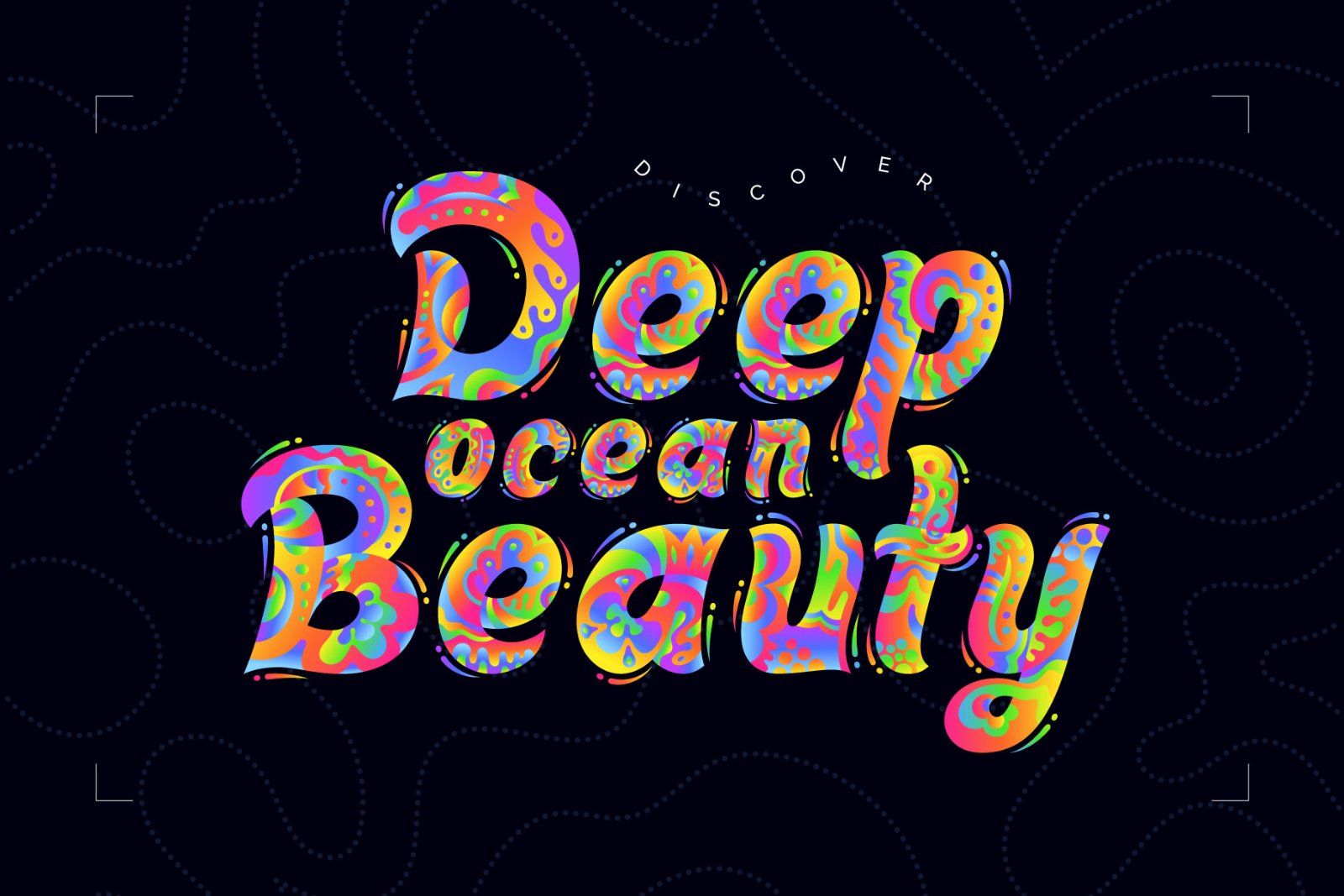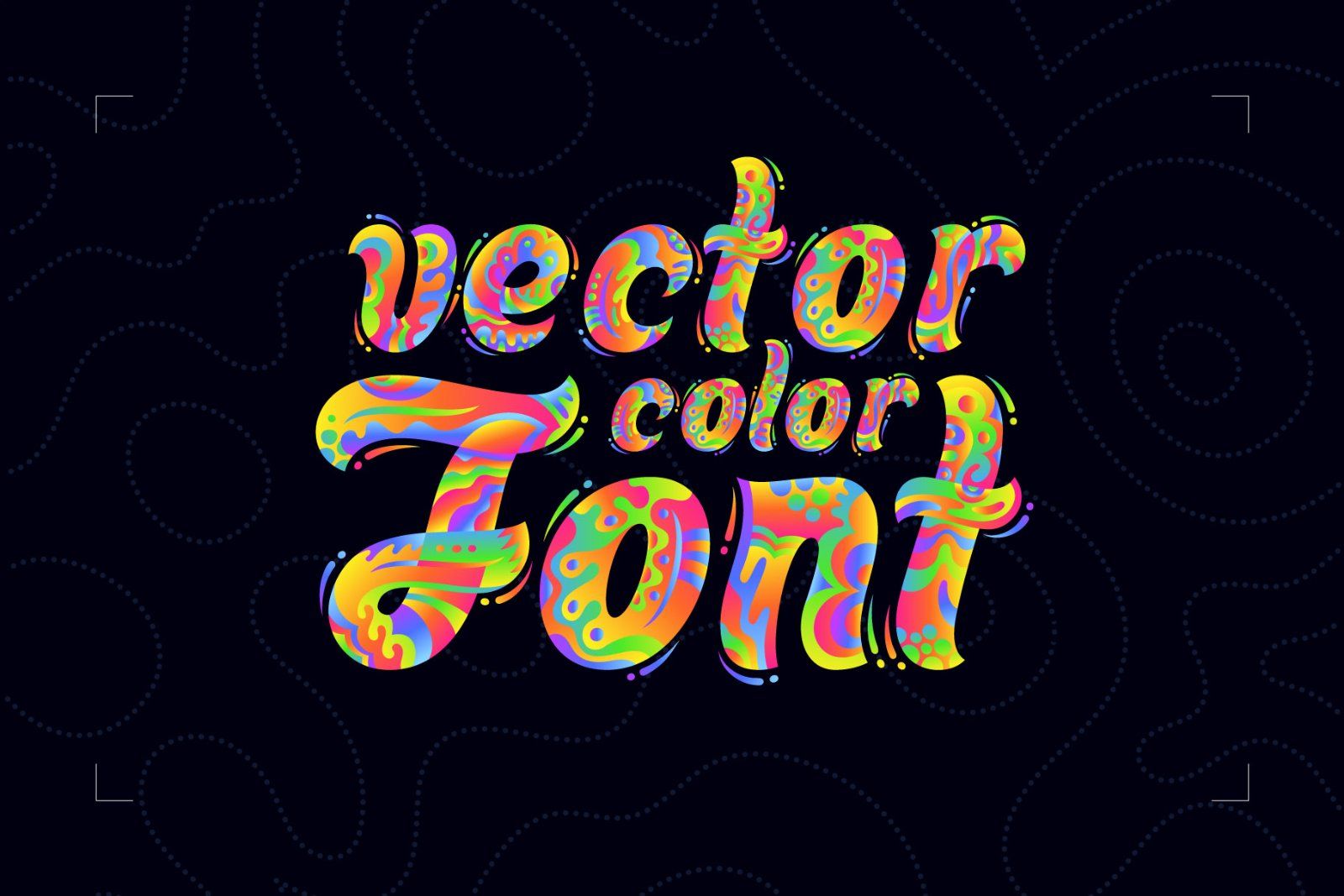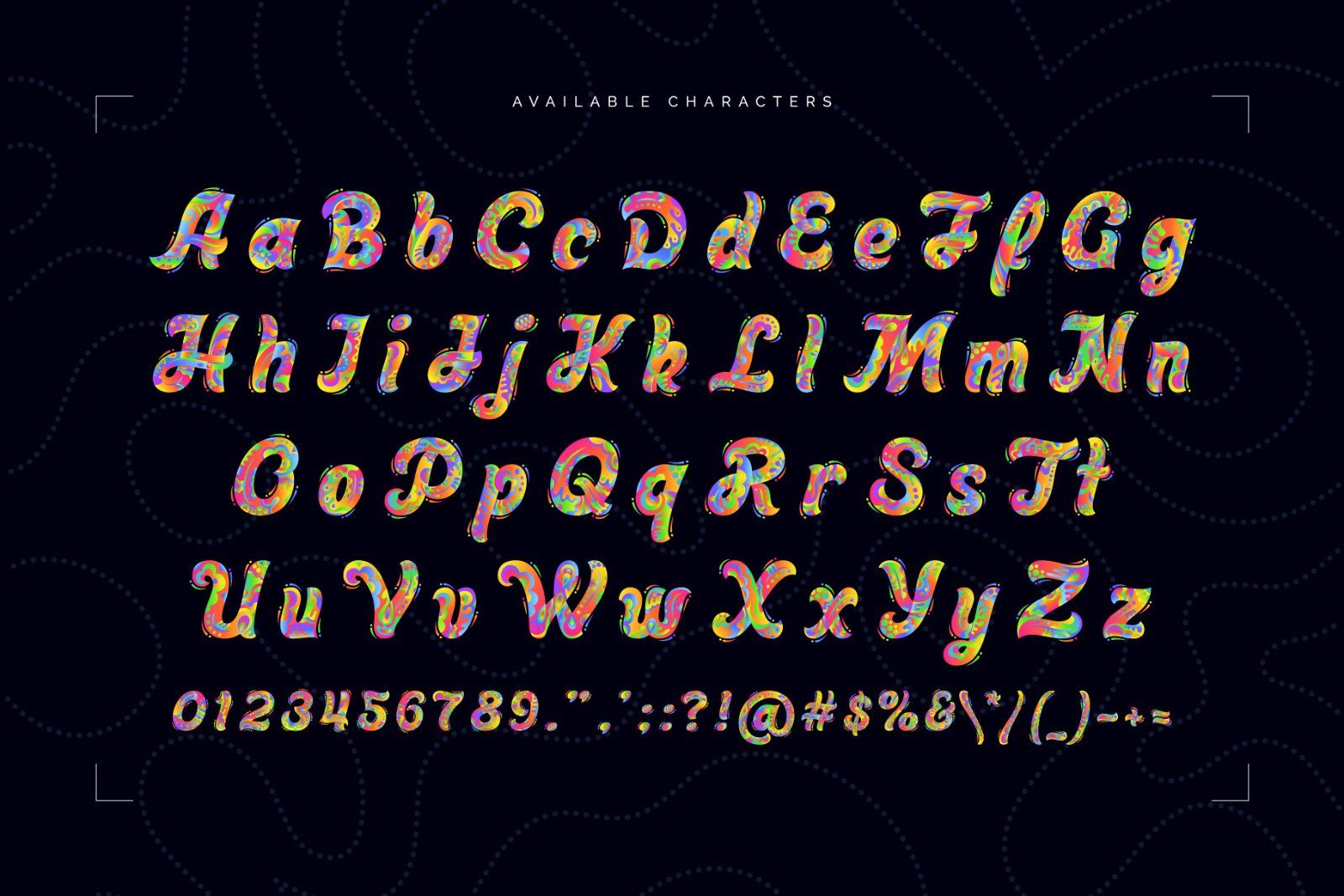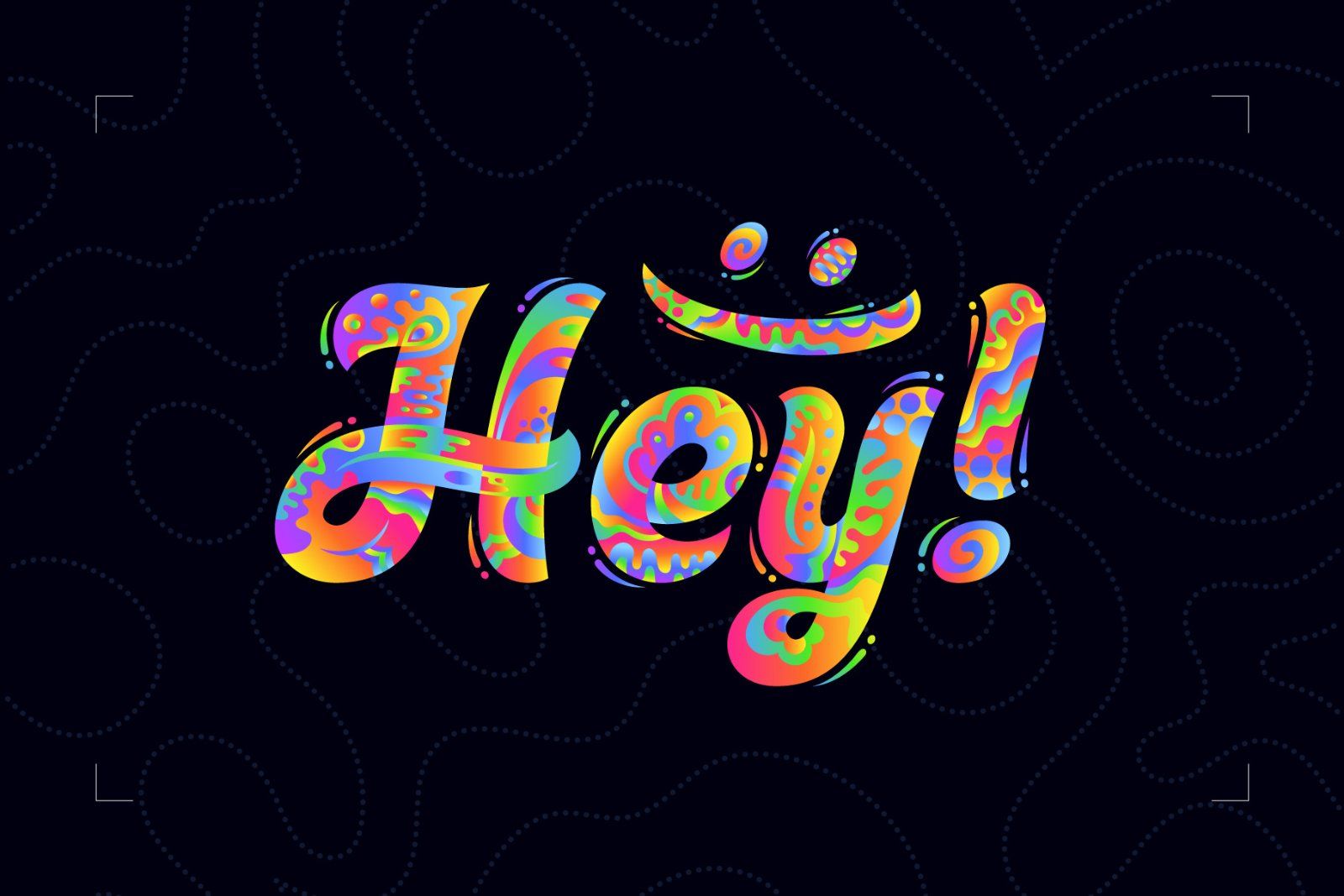
Hello! Presenting a colorful creative font set — Vivid Corals. It's a vector hand drawn high quality typeface with rainbow colored abstract decoration. First of all it's a color vector OpenType-SVG font that can be used as a usual OTF font. Also a set of vector SVG files is included. Consider that only English language and basic punctuation is supported, please check out the screenshot with all available characters.